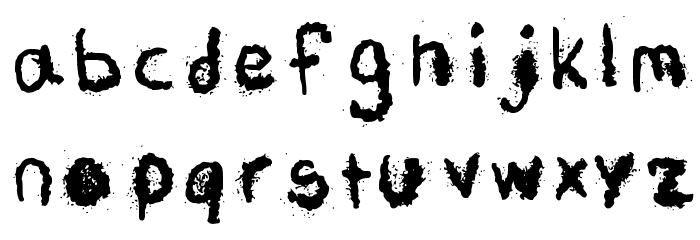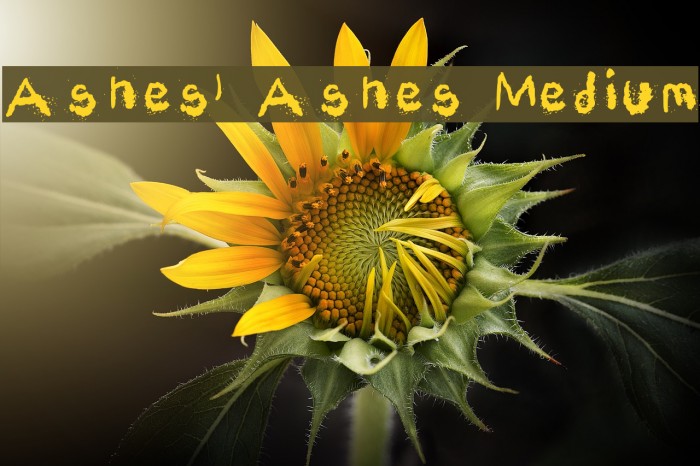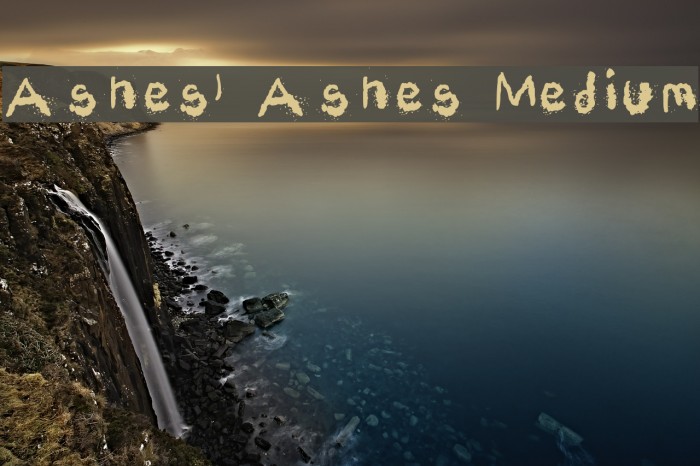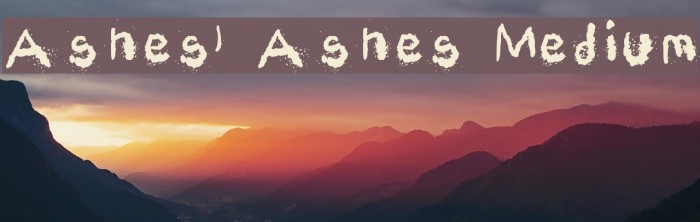
Ashes, Ashes Medium Font
This font features a distressed, grunge style that gives the impression of being weathered or eroded. The characters have an uneven, textured appearance, with irregular edges and a scattered, speckled pattern that suggests decay or ash. The uppercase and lowercase letters maintain a consistent style, with a playful yet rugged aesthetic. The numerals and special characters follow the same design, ensuring a cohesive look across all glyphs. This font's unique style is ideal for projects that require a raw, edgy feel.
A distressed, grunge-style font with a textured, weathered appearance.
- Proposed Projects: Ideal for album covers, posters, urban-themed designs, and any project needing a gritty, raw aesthetic.
- Overall Style: Grunge, Distressed
- Use Case: Headlines, Posters, Artistic Designs